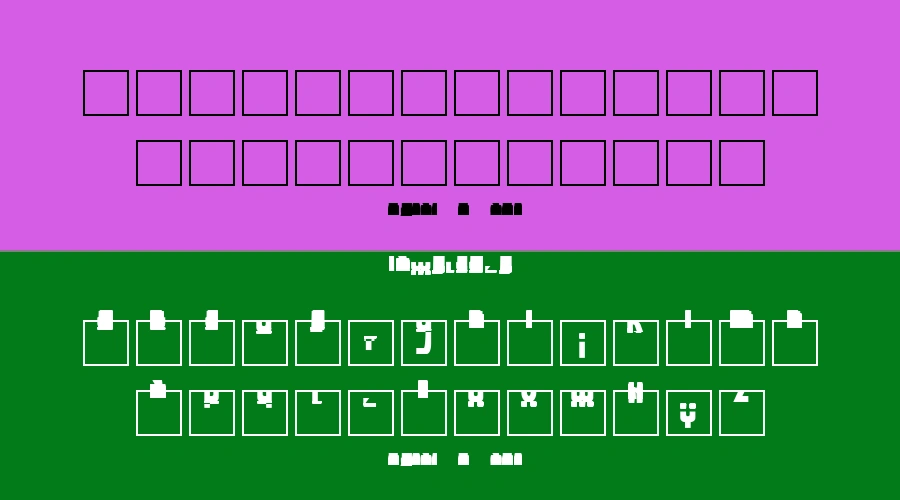
About Anatol Mn Font
Anatol Mn Font embodies typographic excellence through its masterful combination of structural clarity and reading ease. Created for wayfinding systems, this typeface delivers exceptional reliability and user trust across all applications. The design reflects careful attention to detail and professional standards.
Advanced capabilities include distinctive organic forms and versatile terminal forms, giving designers creative control. When used in creative titles, Anatol Mn Font exhibits remarkable multi-language support. The harmonious balance between counter shape and institutional trust sets this typeface apart.